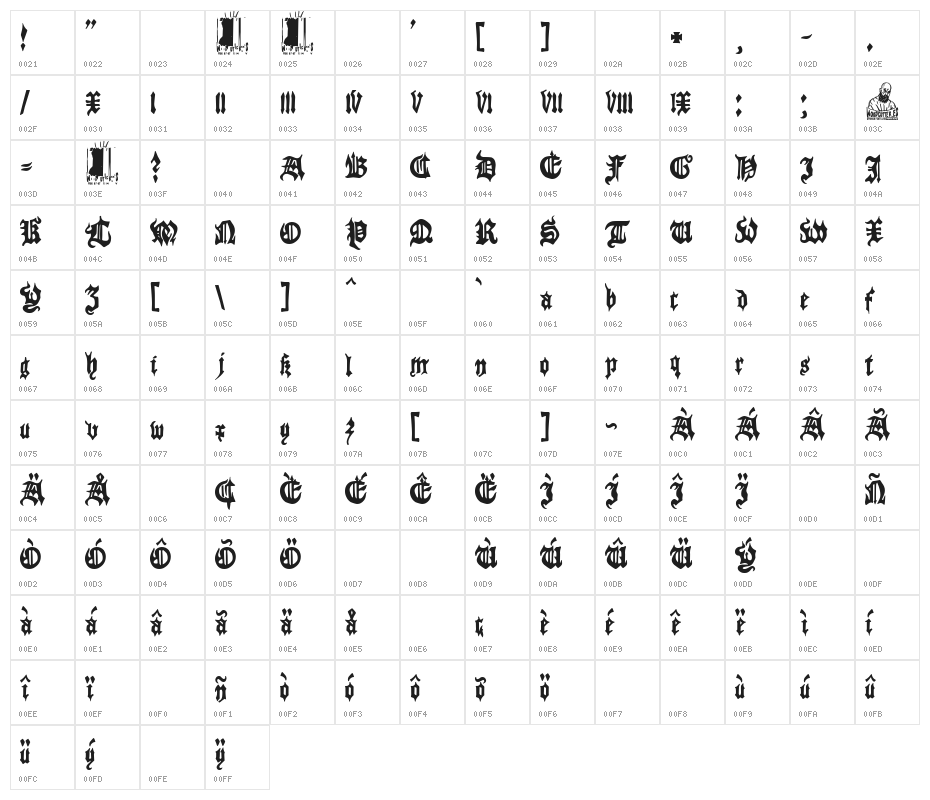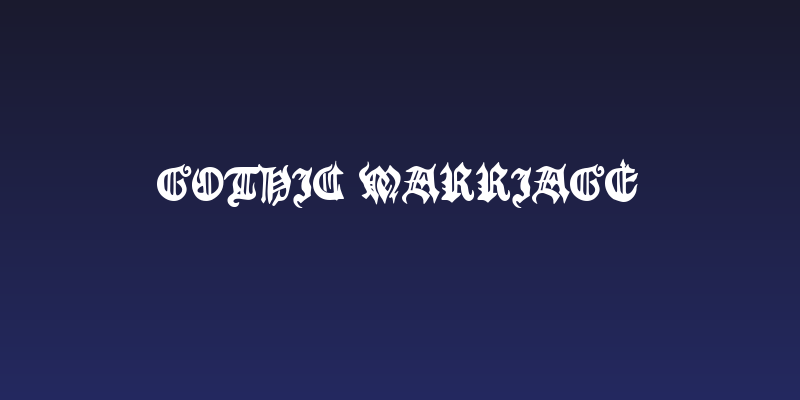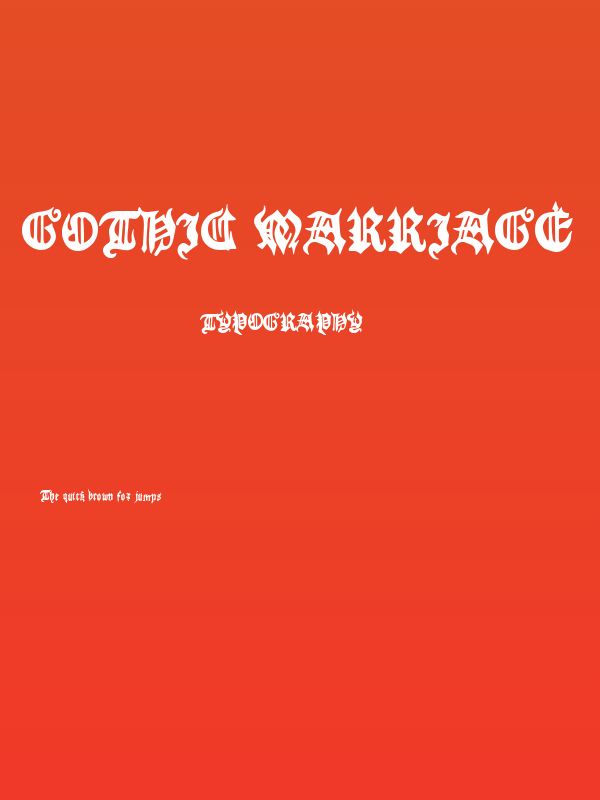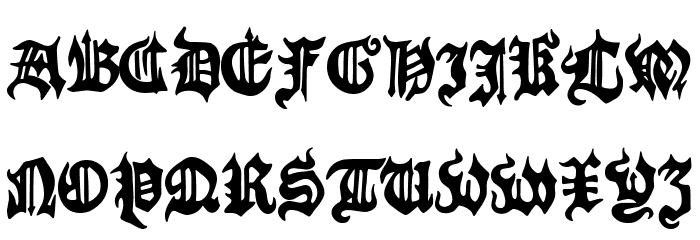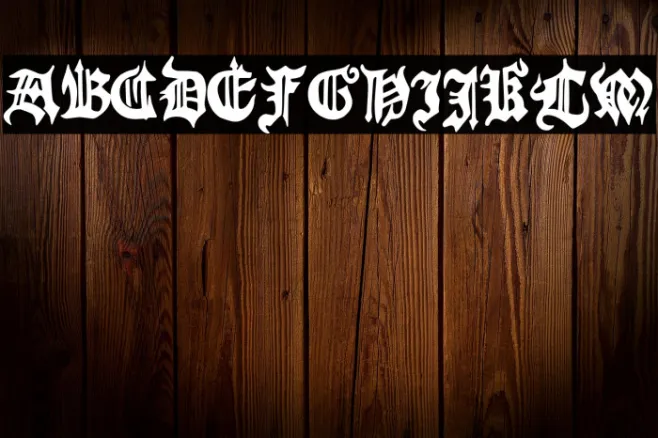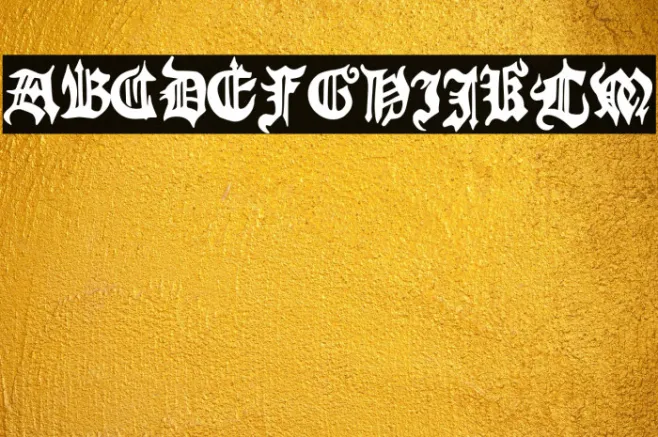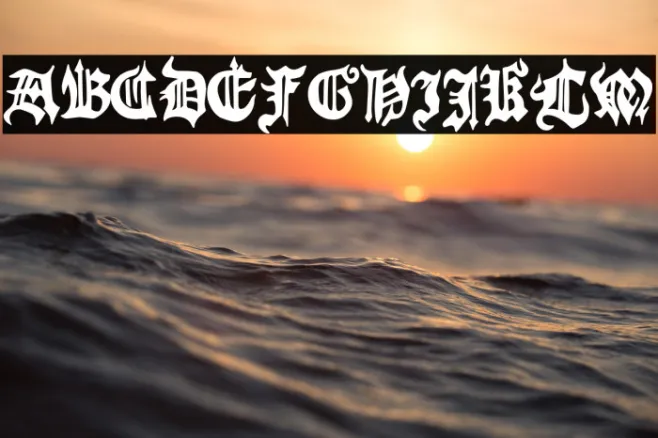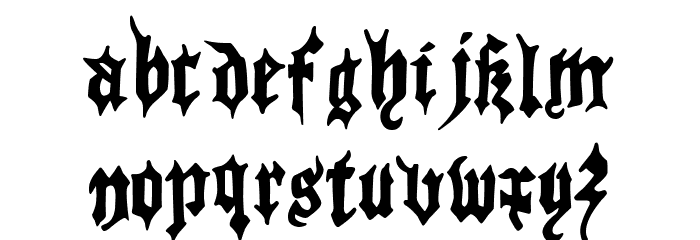
Gothic Marriage Font
Gothic Marriage Description
This font exhibits a classic blackletter style, characterized by its intricate and ornate letterforms. The uppercase letters are bold and dramatic, with sharp angles and elaborate flourishes that evoke a sense of historical elegance. The lowercase letters maintain the same level of detail, offering a cohesive and visually striking appearance. The numbers and special characters are designed to match the overall aesthetic, ensuring consistency across all text elements. This font is ideal for projects that require a touch of medieval or gothic flair, making it perfect for invitations, posters, and branding that seeks to convey a sense of tradition and grandeur.
| Use Case | Headlines, Logos, Decorative text |
| Proposed Projects | Perfect for wedding invitations, historical event posters, gothic-themed branding, and decorative certificates. |